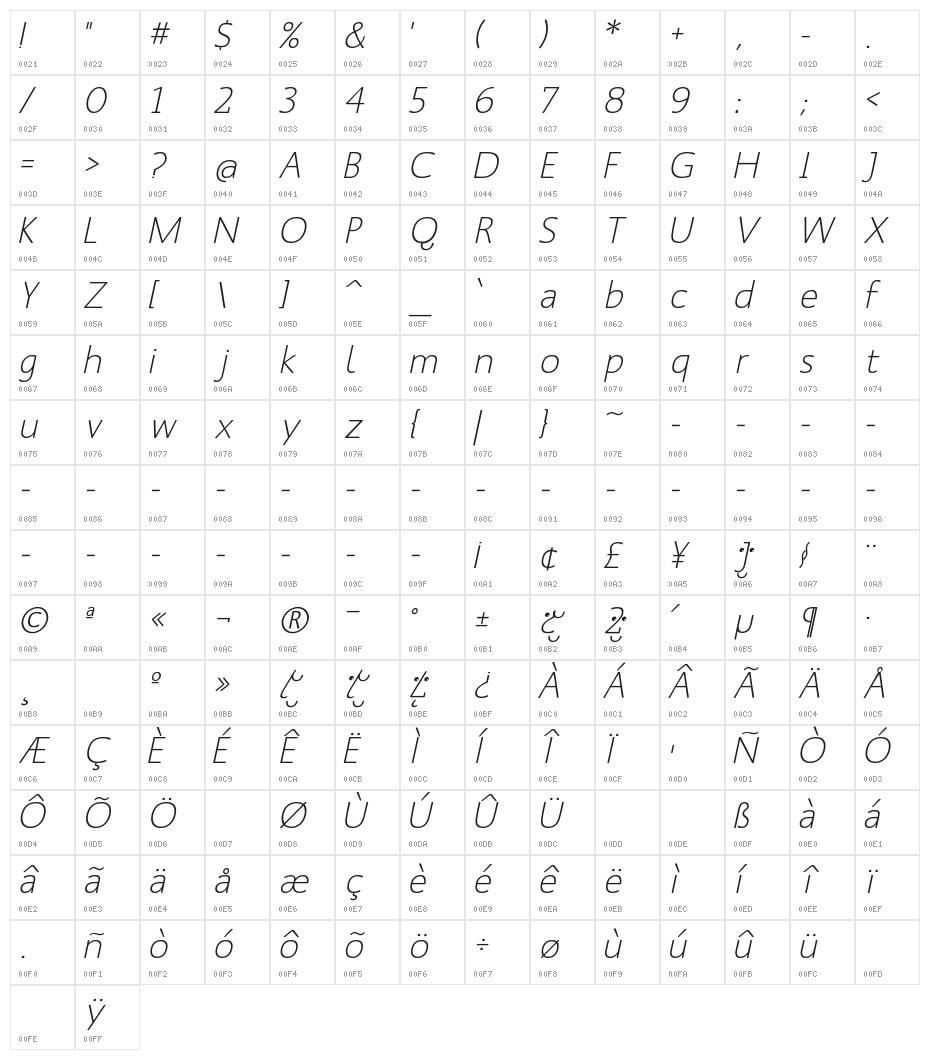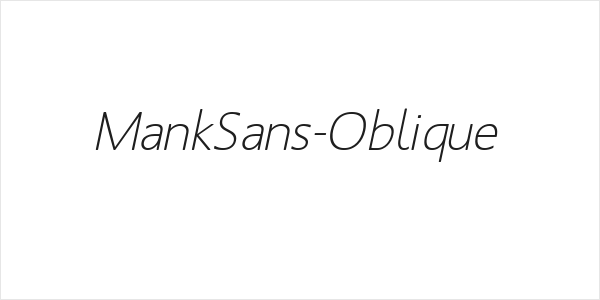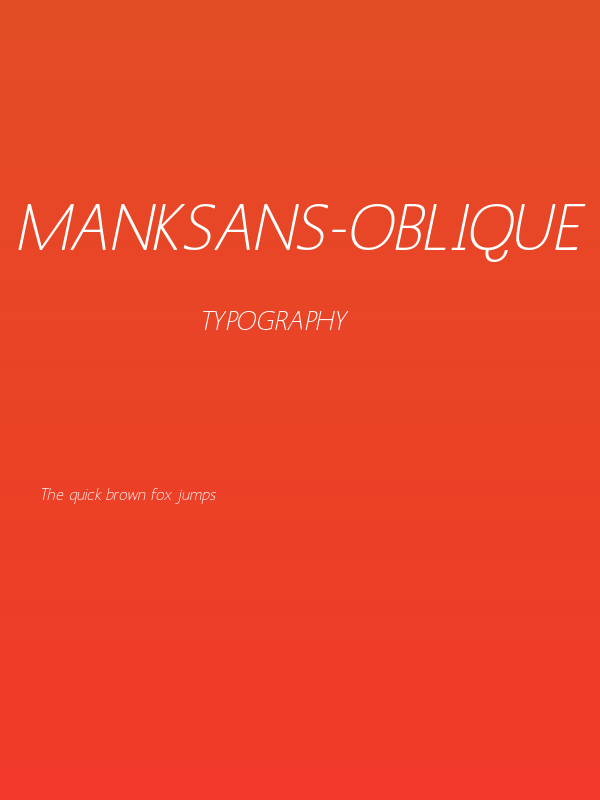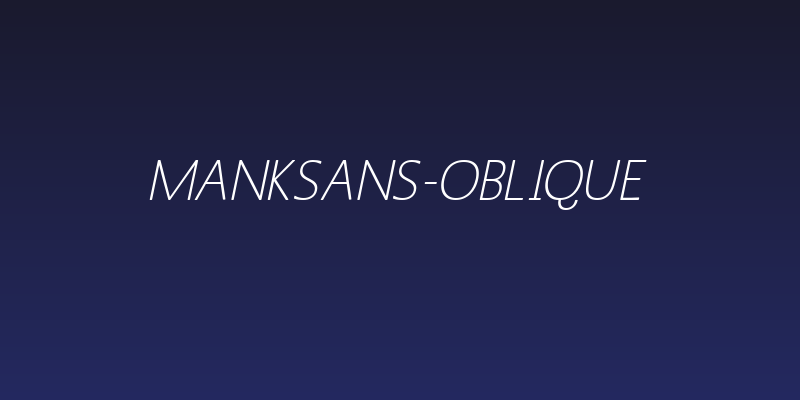
MankSans-Oblique Font
MankSans-Oblique Description
This font features a sleek and modern sans-serif design with an oblique style, giving it a dynamic and forward-leaning appearance. The characters are clean and well-defined, with a consistent stroke width that maintains a uniform look across both uppercase and lowercase letters. The numerals and special characters are designed to complement the alphabet, ensuring readability and aesthetic balance. Its simplicity and elegance make it suitable for a wide range of applications, from digital interfaces to print media.
Proposed ProjectsIdeal for branding, digital interfaces, editorial design, and advertising materials.